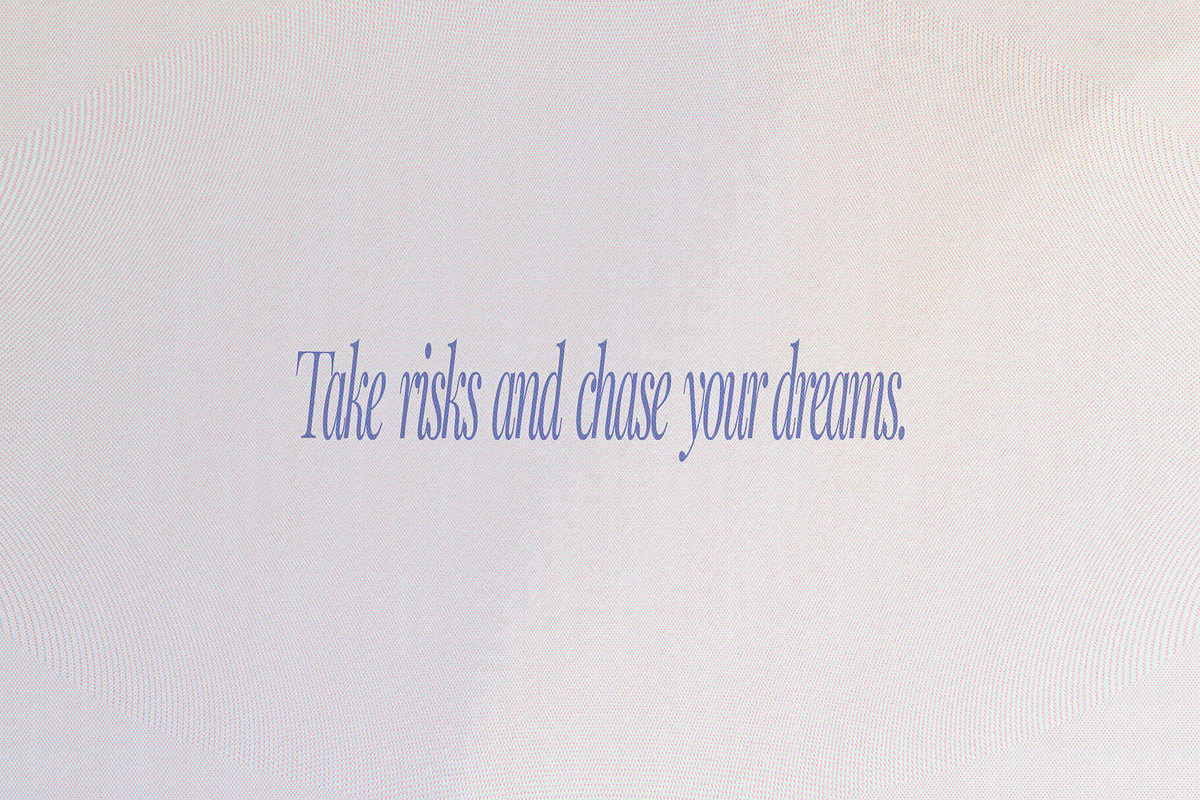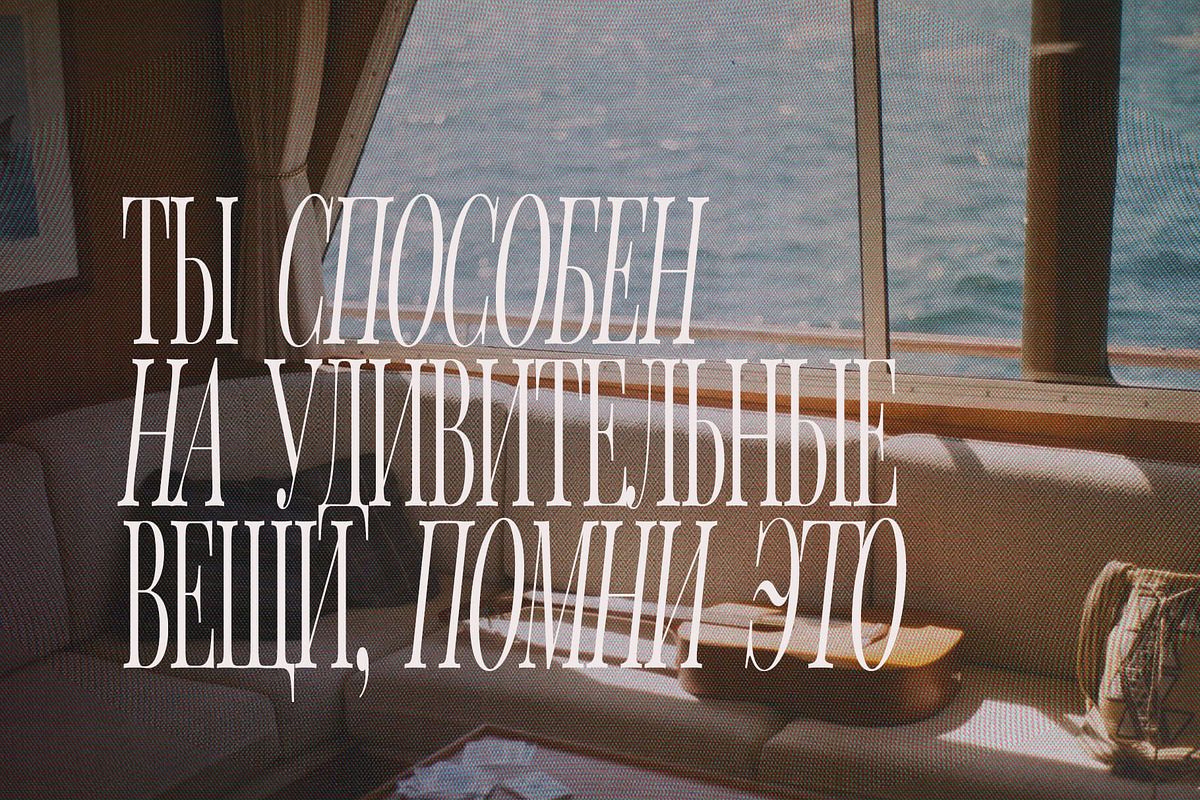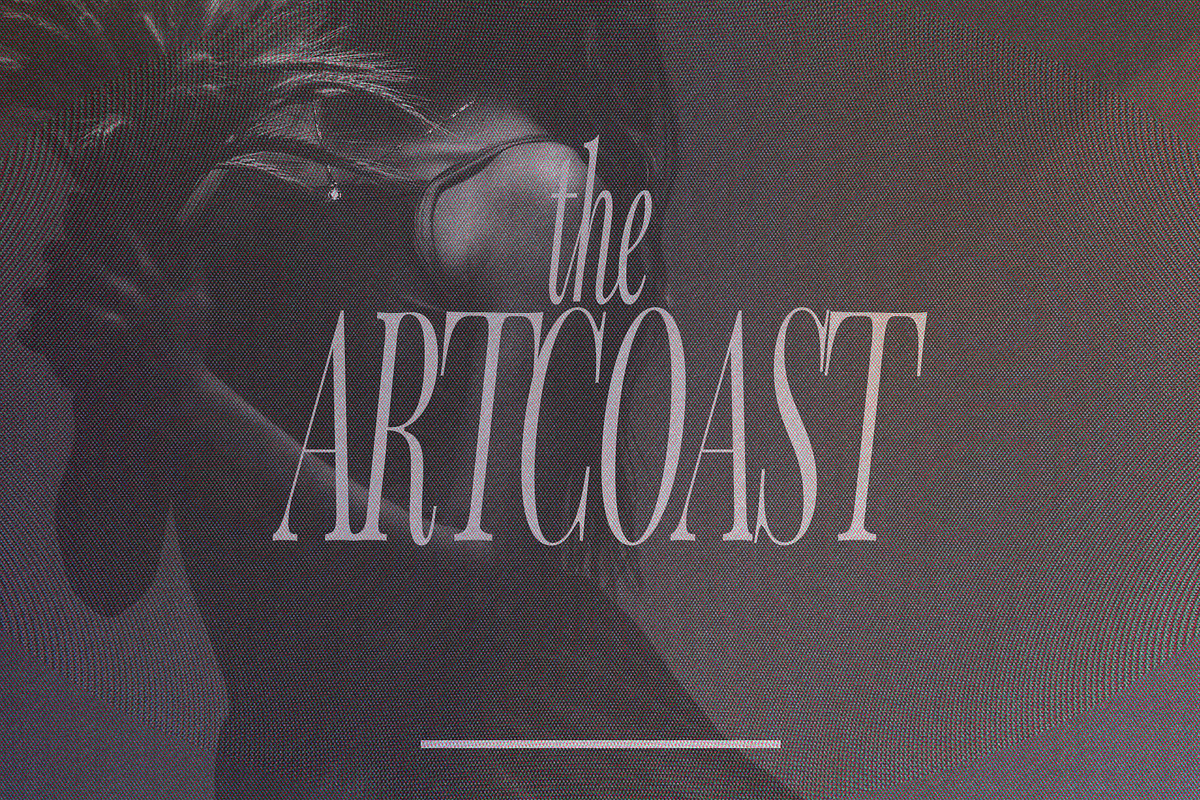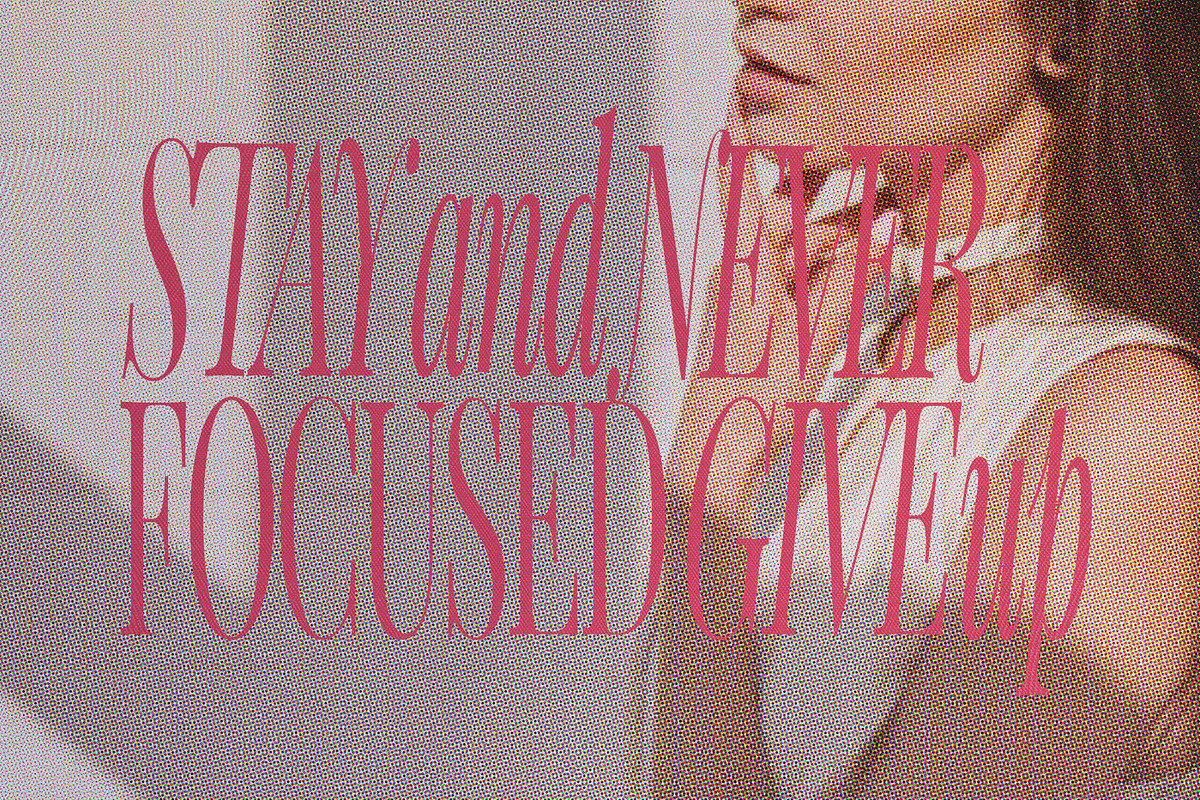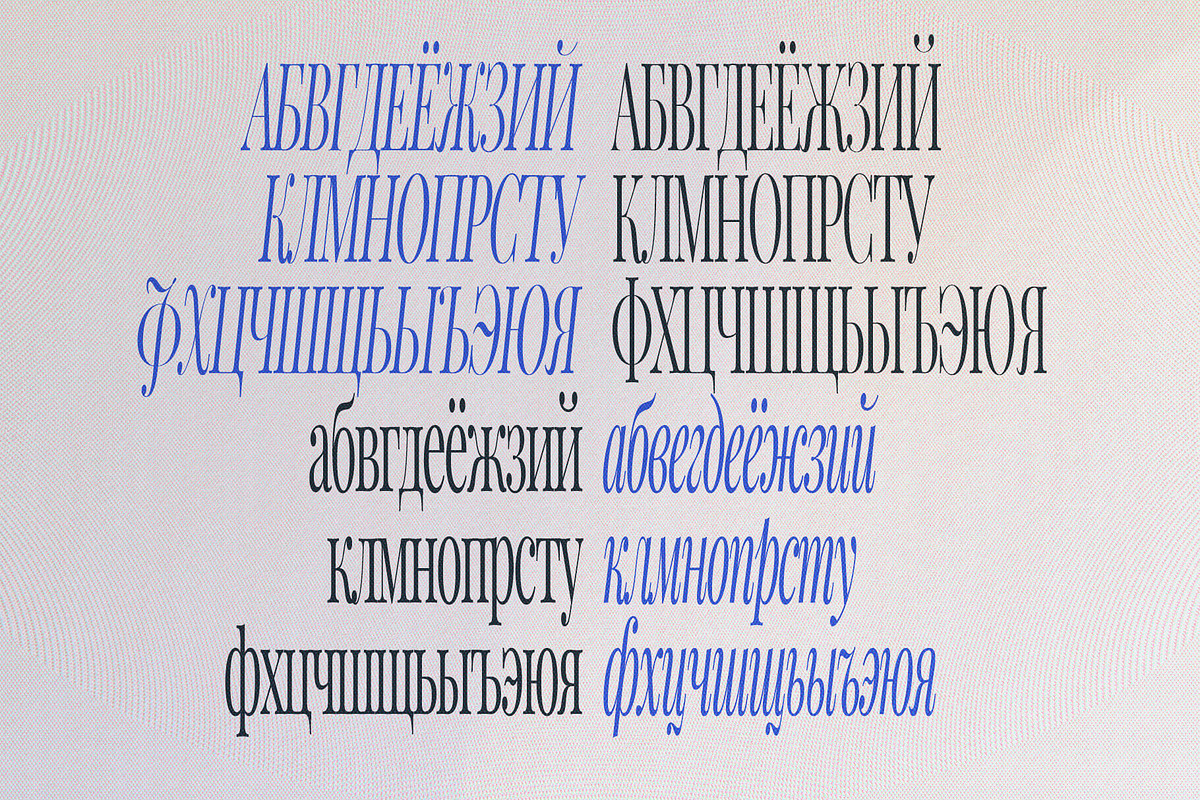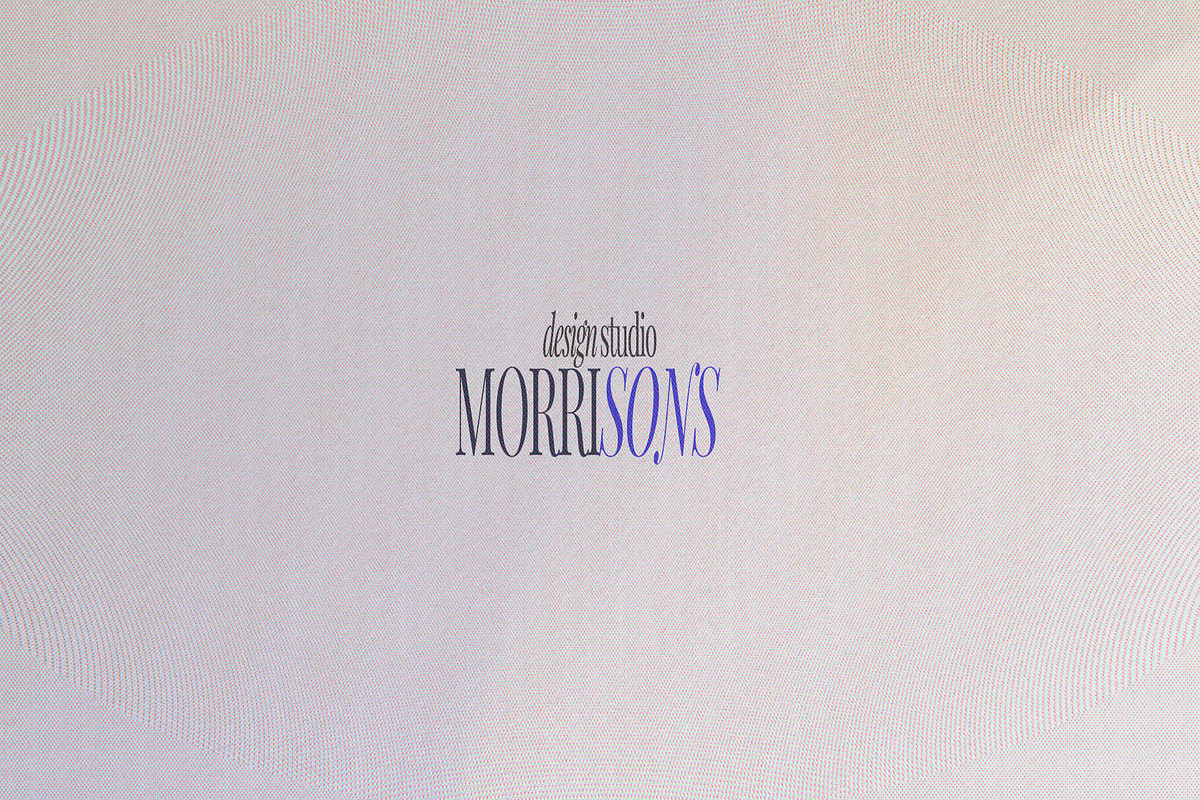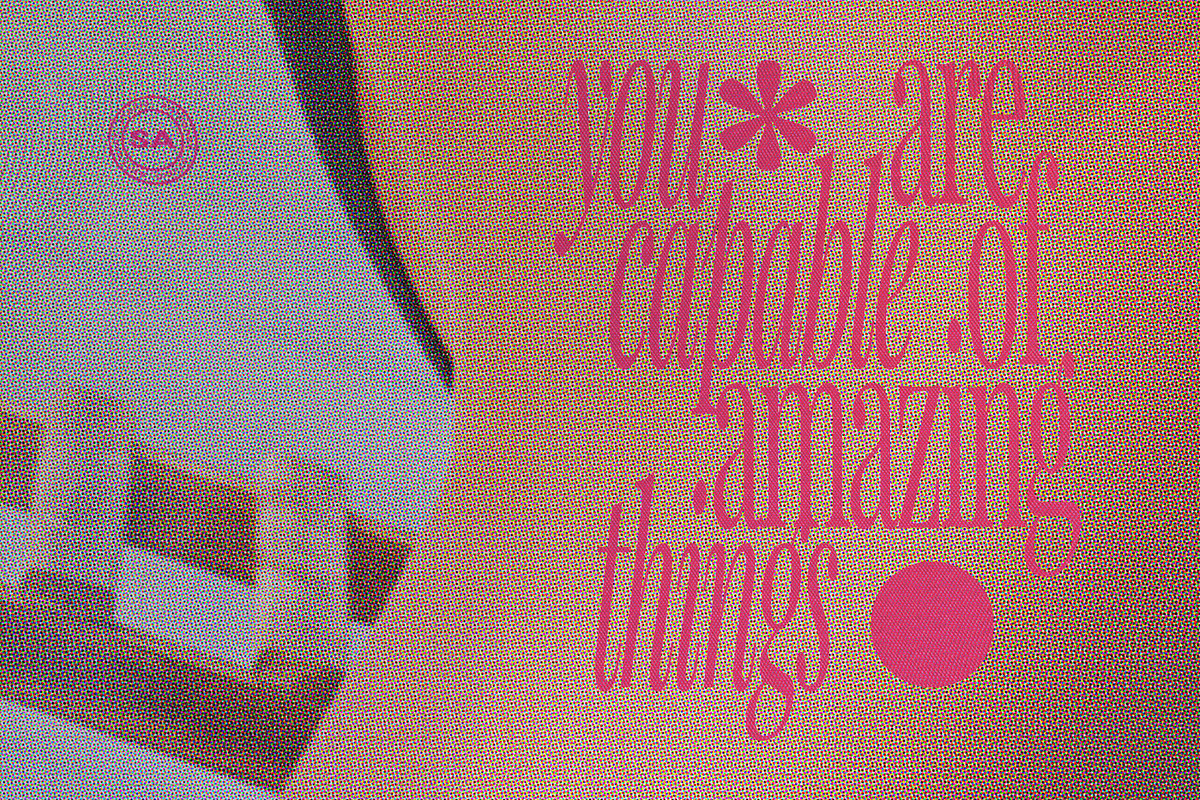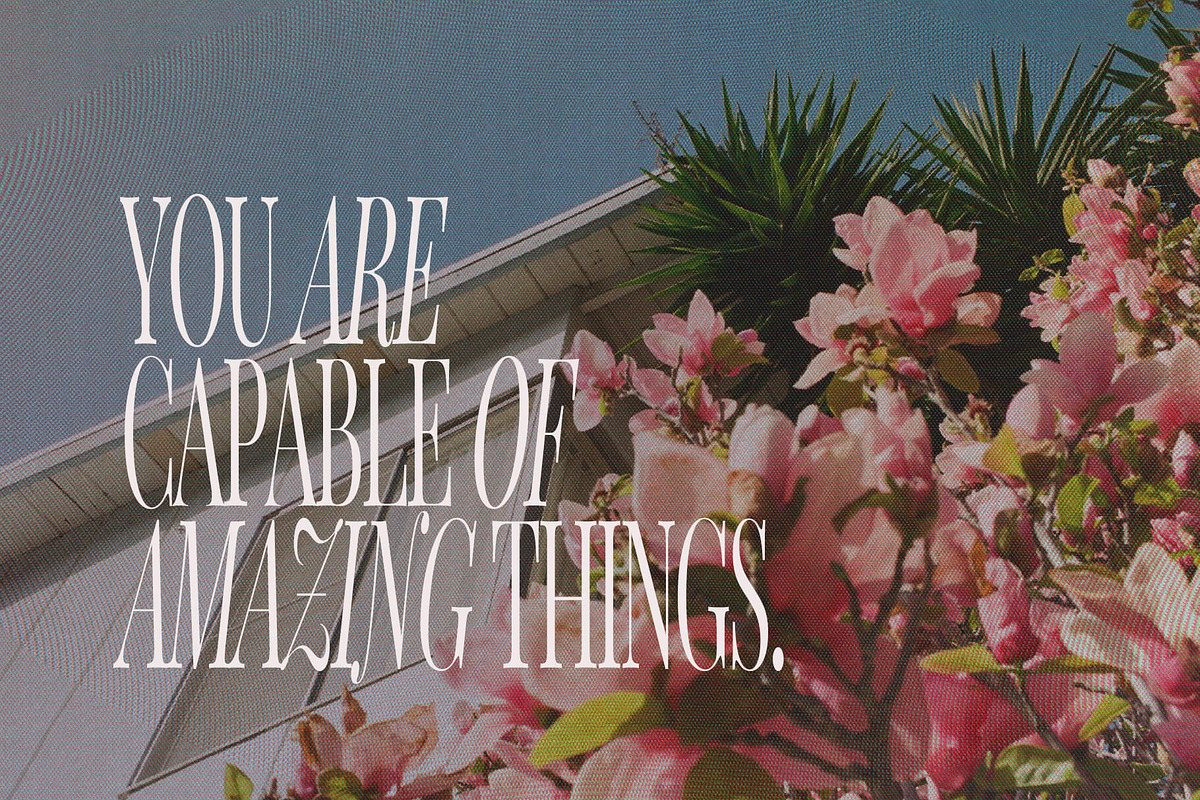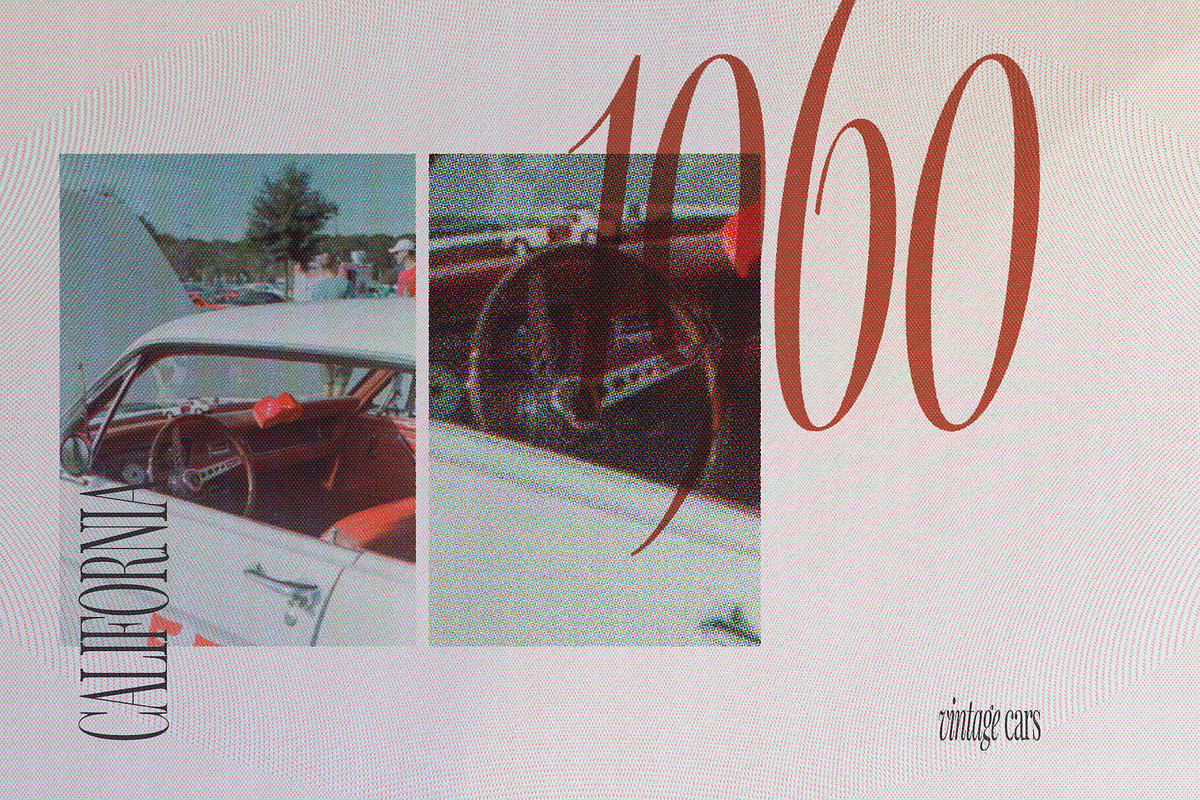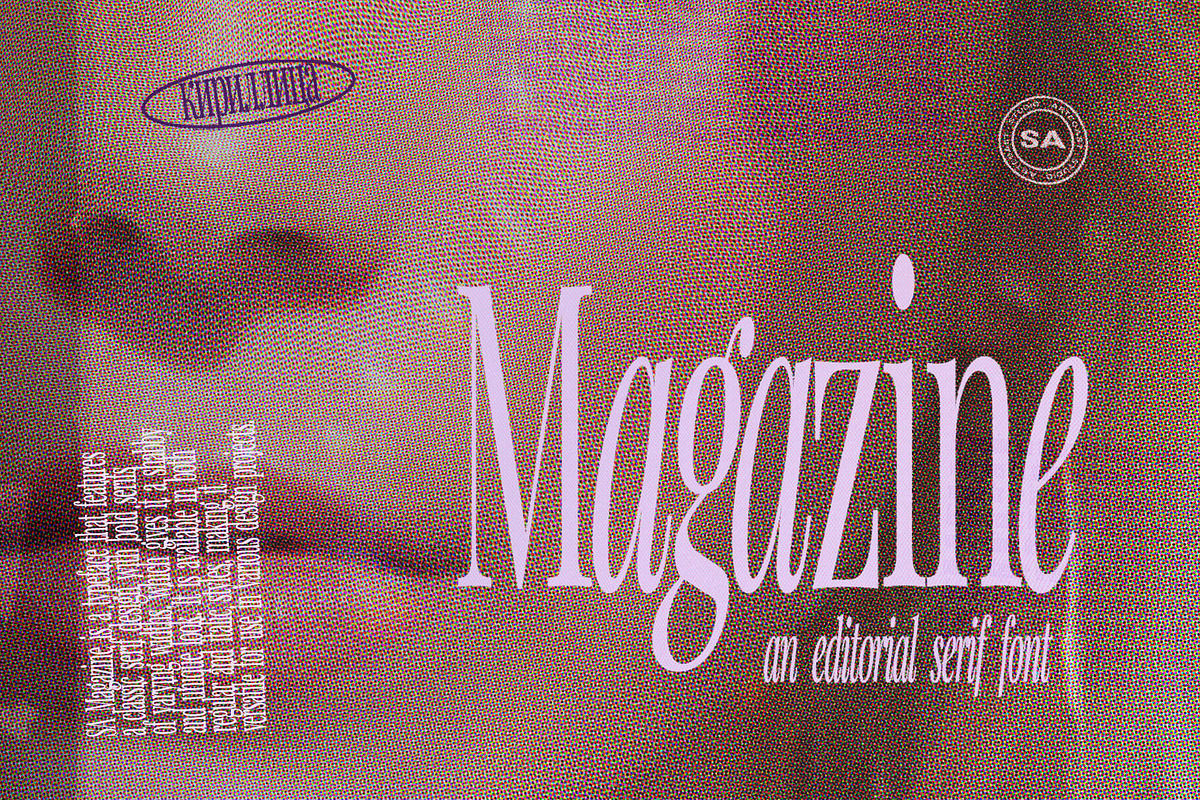
SA Magazine High-Contrast Serif Font
SA Magazine is a high-contrast serif font family with narrow proportions and two expressive styles: Regular and Italic. Dramatic thick-and-thin contrast gives headlines a refined editorial character while the italic adds movement and personality.
Designed for display typography, SA Magazine works best at large sizes in magazine covers, fashion editorials, posters, branding, logos, packaging, social graphics, and memorable quotes.
SA Magazine Regular
SA Magazine Italic
Uppercase and lowercase Latin character set
Uppercase and lowercase Cyrillic character set
Because of its narrow proportions and high contrast, SA Magazine is best suited to headlines and short display copy rather than long body text.